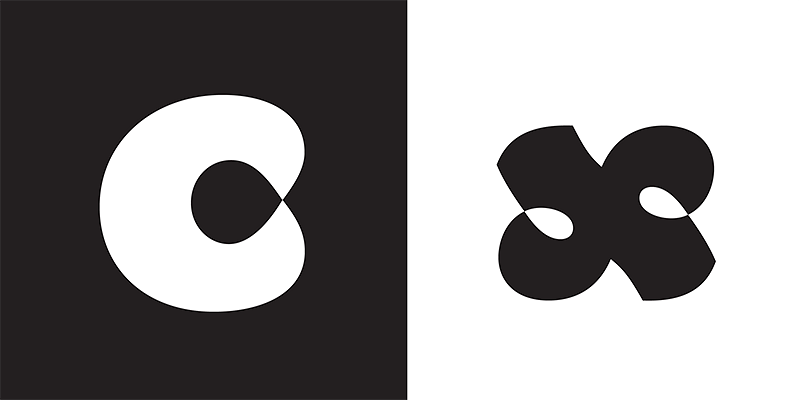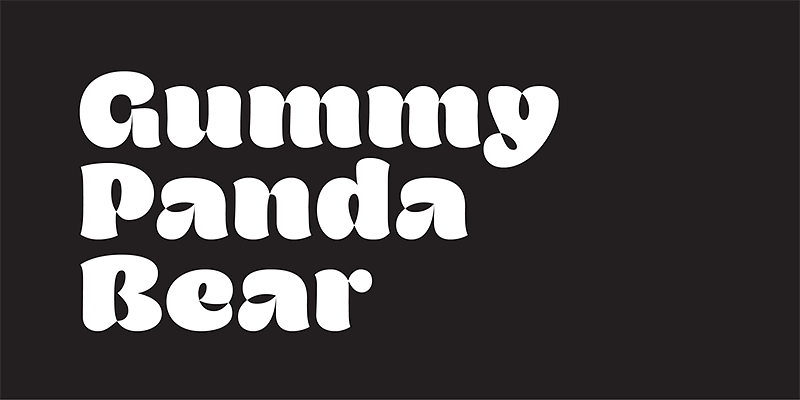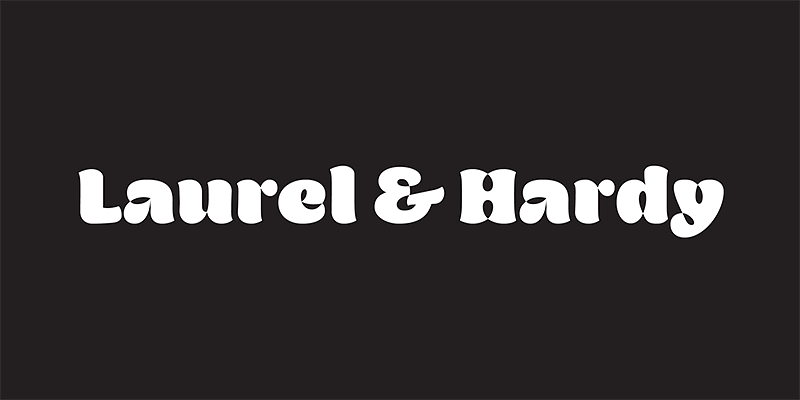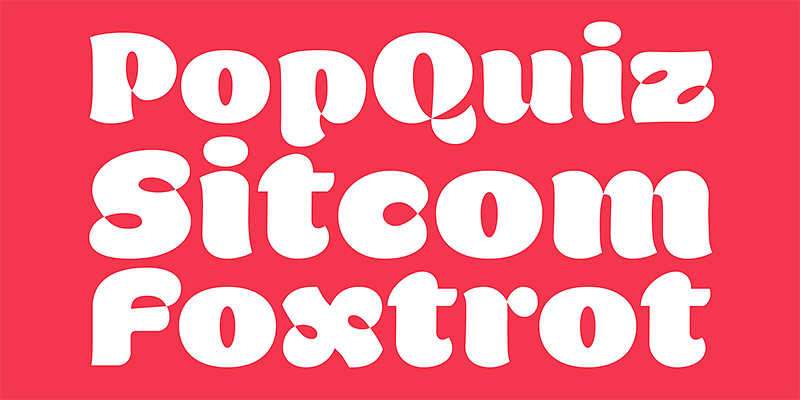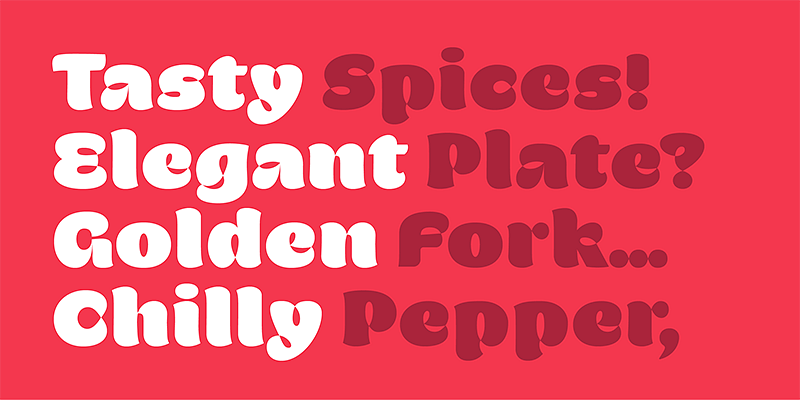
Opake™ is an experimental typeface design that steps away from regular design conventions. Instead of basing the design on a calligraphic tool or geometric shapes, Opake™ is the result of the exercise of creating letters with a single continuous loop line.